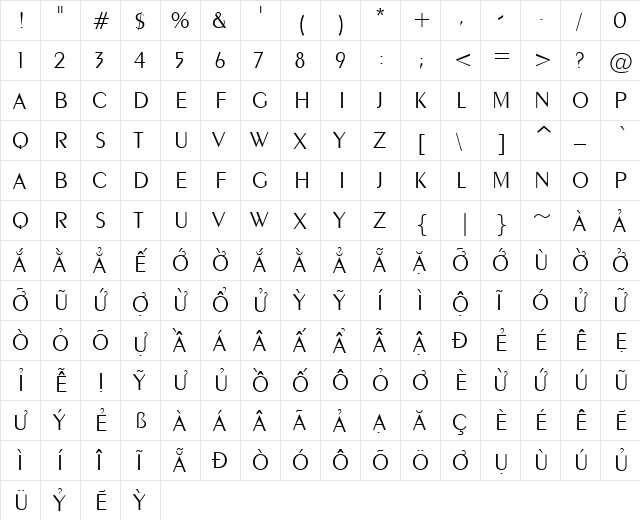
VPS Kien Giang Hoa Light
Design Context for VPS Kien Giang Hoa Typeface
VPS Kien Giang Hoa offers clean, dependable letterforms without strong stylistic allegiance, making it a practical choice for designers who need flexibility. The delicate stroke weight brings airiness and refinement to layouts.